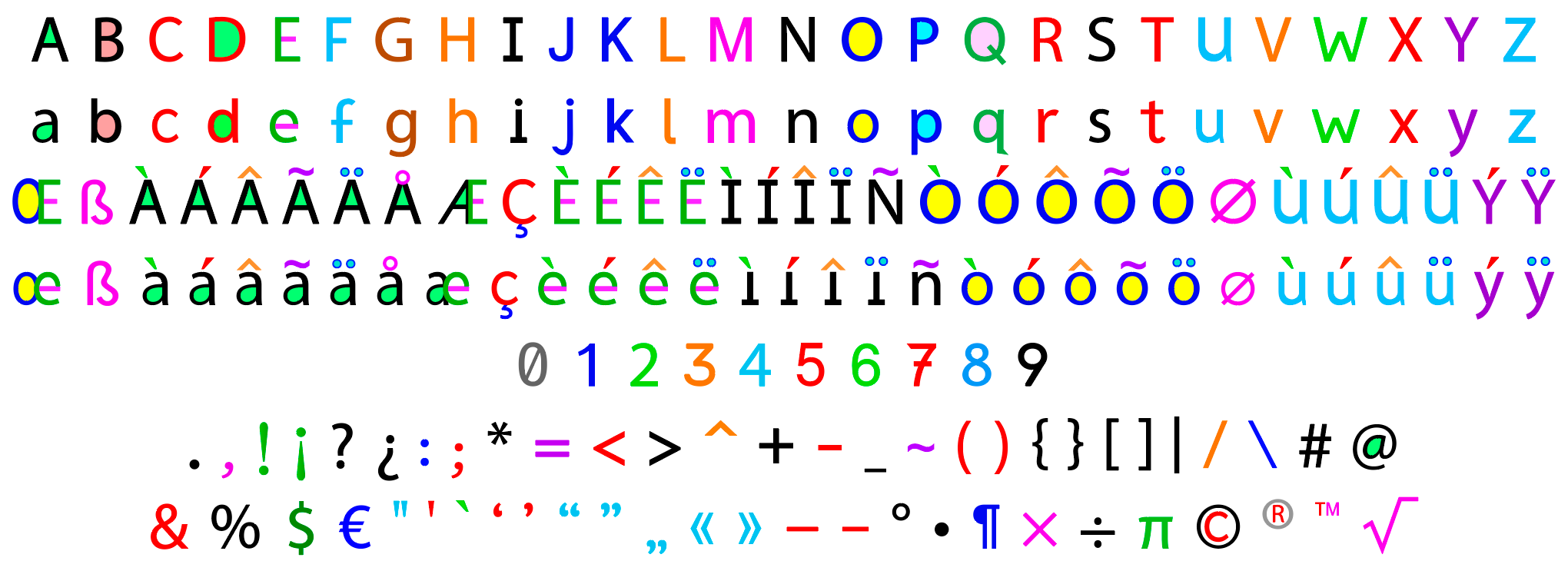
Current Character Set
RexLex comes in a variety of brightness levels but all version share the same hues. RexLex includes the character for English as well as all Western European Countries, such as Spain, France, Italy, Germany and Scandinavia. Eastern European Languages will be coming in 2026. The Character Set for Level 2 Brightness:
Future Character Sets
The following character sets are in the works:
Eastern European Additions to the Latin Set
Greek
Cyrillic
Arabic
Devanagari (Hindi)
Hebrew
Korean (Hangul)
Thai
Japanese (Hiragana & Katakana)
Coptic
Kanji (Chinese)